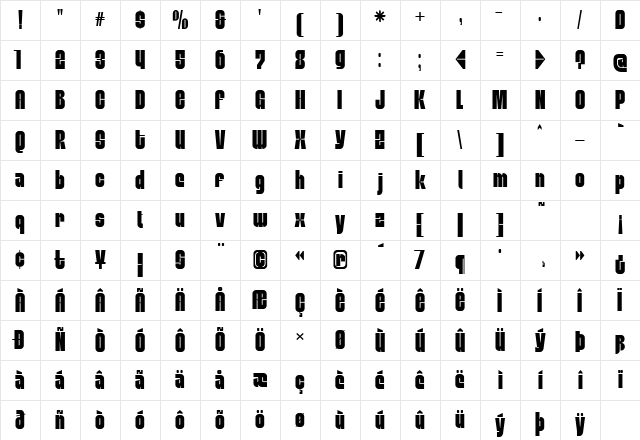
MobleySans Regular Free Font
MobleySans Regular
Foundry: SUDTIPOS. Disenada por Alejandro Paul y Alfredo Graziani. Todos los derechos reservados. Buenos Aires, Argentina
MobleySans is a composed and adaptable typeface that performs quietly and consistently across a wide range of design contexts.
Who designed the MobleySans Regular font?
This font was published by SUDTIPOS. Disenada por Alejandro Paul y Alfredo Graziani. Todos los derechos reservados. Buenos Aires, Argentina. Check the technical specs section for copyright and designer details.